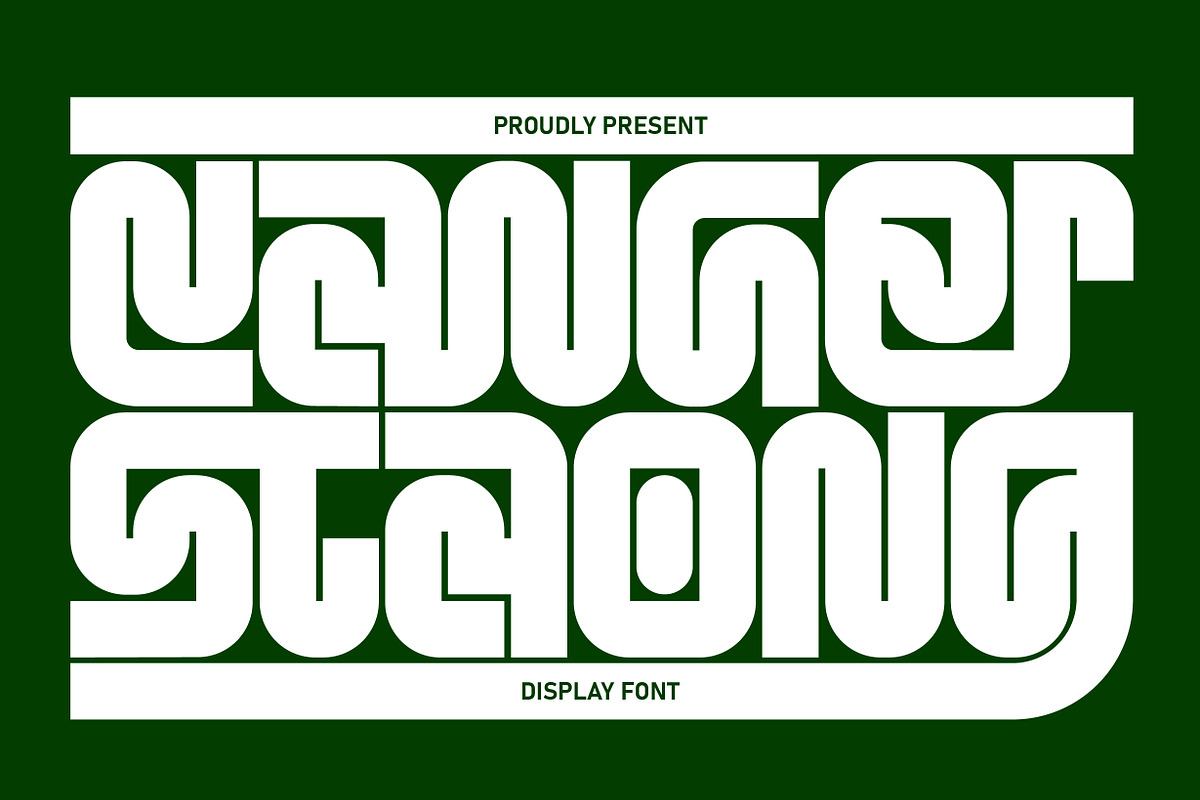
Canger staong - Display font Free Download
Canger Staong Display Font Free Download
Canger Staong Display Font Free Download is a bold and distinctive typeface designed to make a strong visual impact. With its sharp angles, artistic curves, and dynamic structure, this font is perfect for headlines, logos, posters, apparel design, and other creative projects that demand attention. Whether you're working on urban-style graphics, edgy branding, or eye-catching print layouts, Canger Staong brings serious personality to the table.
Don’t miss out on the chance to try Canger Staong Display Font Free Download and give your next project a bold, unforgettable twist. Add it to your design toolkit and create visuals that speak loud and clear with modern, high-impact style.